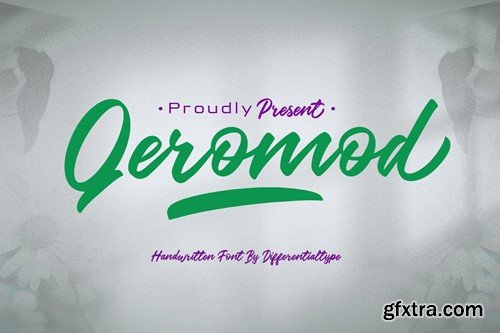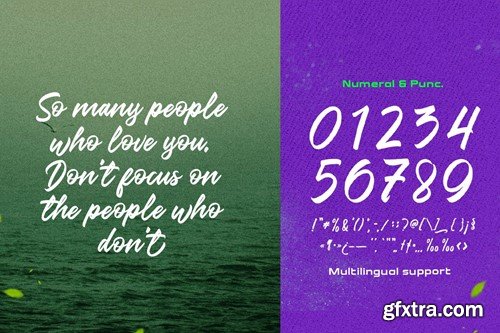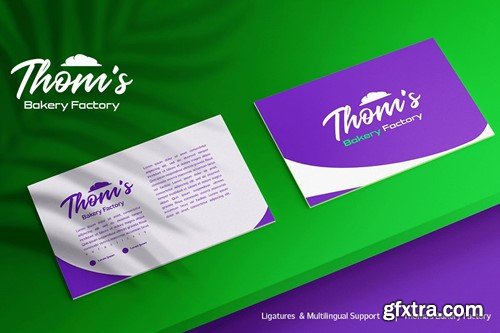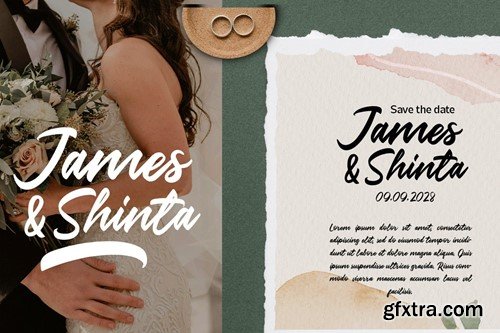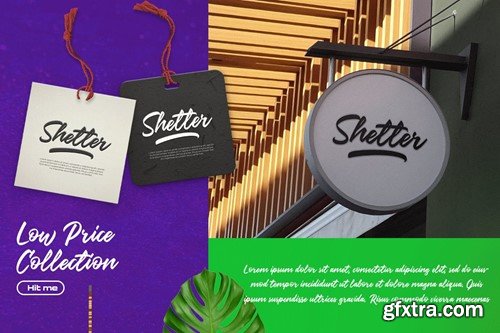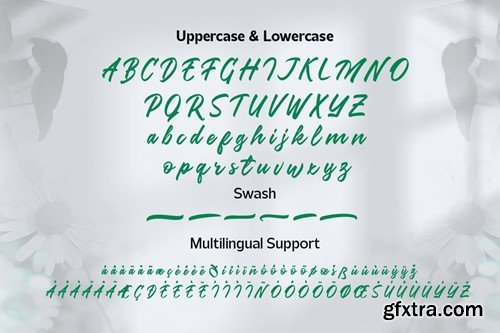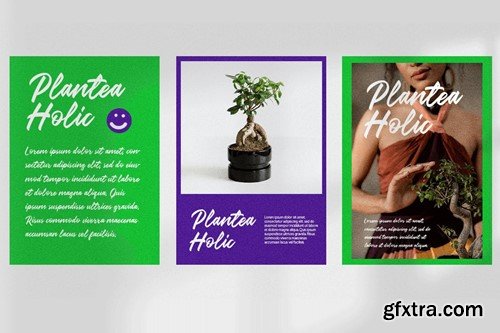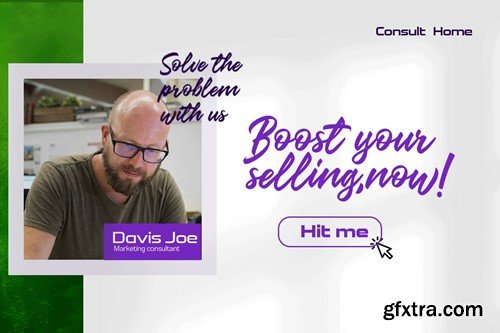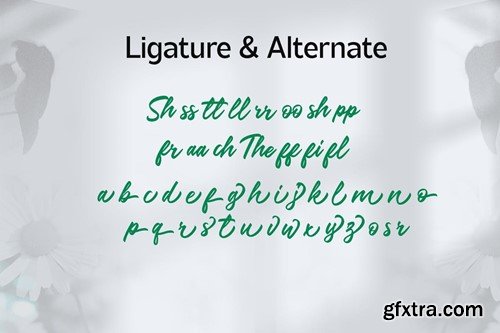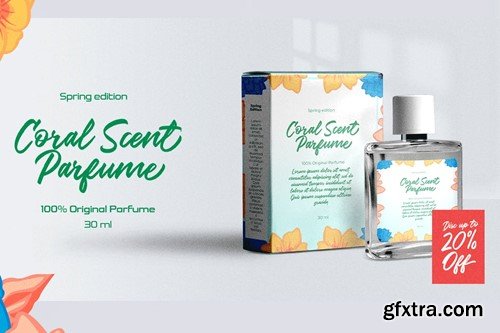
Qeromod - Handwritten Brush Font Q7YWRZR
Qeromod - Handwritten Brush Font
Welcome to the world of Qeromod - an audacious, captivating brush font designed by hand. This font is the chameleon you've always wished for, seamlessly fitting into everything from branding and headlines, to social media quotes and wedding invitations. Incorporate Qeromod into your designs; it's a masterstroke of typography that possesses the power to elevate and enhance the allure of any composition. Discover the transformative potency of Qeromod today!
Features :
• Number
• Punctuation
• Multilingual Support
• Fractions
• Alternates
• Ligatures